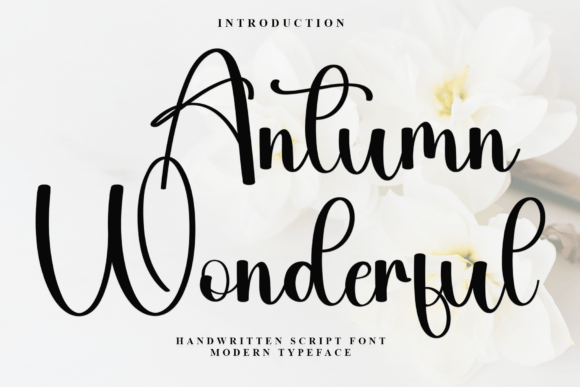
Discover the Magic of Handwritten Elegance
Have you ever sat down with a cup of coffee, a blank page, and a pen, waiting for inspiration to strike? It’s in those quiet moments that the best ideas are born. For designers, finding the perfect font can be just as magical. Imagine a font that captures the essence of handwritten elegance, transporting your designs to a world of sophistication and charm.
Enter the Antumn Wonderful Font, a stylish handwritten script that exudes warmth and creativity. This font is perfect for adding a personal touch to invitations, branding, or social media, bringing a sense of natural flow and fluid strokes to any design. As a designer, you’ll appreciate the value of the Antumn Wonderful Font in elevating your work and giving it a unique, handwritten touch.
Autumn Wonderful Font Key Features
- Font Style: Handwritten, Script
- Unique Characteristics: Whimsical, elegant, and highly legible, making it suitable for wedding invitations, greeting cards, and other special occasions.
Designer Review: Autumn Wonderful Font
I was excited to dive into the Autumn Wonderful Font, but my experience was a mixed bag. Let’s break it down.
- The font has a lovely, cozy feel to it, perfect for autumn-themed designs or branding.
- The letterforms are well-crafted, with smooth curves and clear lines.
- The font includes a range of weights and styles, making it versatile for different design applications.
- The font feels a bit overused, and I’ve seen it used in many designs before.
- The bold weights can appear a bit too heavy-handed at times, making the text feel cluttered.
- The font lacks a distinct personality or unique twist, making it feel like a safe but unremarkable choice.
While the Autumn Wonderful Font is a solid choice for autumn-themed designs, it doesn’t particularly stand out in a crowded market. If you’re looking for a reliable, workhorse font, this might be a good option. However, if you’re seeking something more unique or eye-catching, you might want to look elsewhere.
Tips for Getting the Most Out of Antumn Wonderful Font
Antumn Wonderful Font is ideal for creating elegant and sophisticated designs. Here are some tips for getting the most out of it:
- Use it for titles and headings to add a touch of elegance.
- Pair it with a simple background to let the font take center stage.
Antumn Wonderful Font is perfect for:
Dancing Script is a fun and playful script font that’s perfect for creating a whimsical and carefree atmosphere. It’s ideal for creating designs for children’s products, party invitations, and other playful occasions. Dancing Script has a more playful and casual feel compared to Antumn Wonderful Font, which has a more elegant and sophisticated look.
Autumn Inspiration: 3 Creative Projects with Antumn Wonderful Font
Project 1: Autumn Leaf Journal
Transform your journal into a beautiful autumnal retreat with the Antumn Wonderful Font.
To use Antumn Wonderful Font in this project, print out a selection of leaves in various shades of orange, red, and yellow using a printer or hand-paint them.
For optimal readability, we recommend using a font size between 12-14 points and a line height of at least 1.5 times the font size. This will ensure that the text is clear and easy to read, even at smaller font sizes.